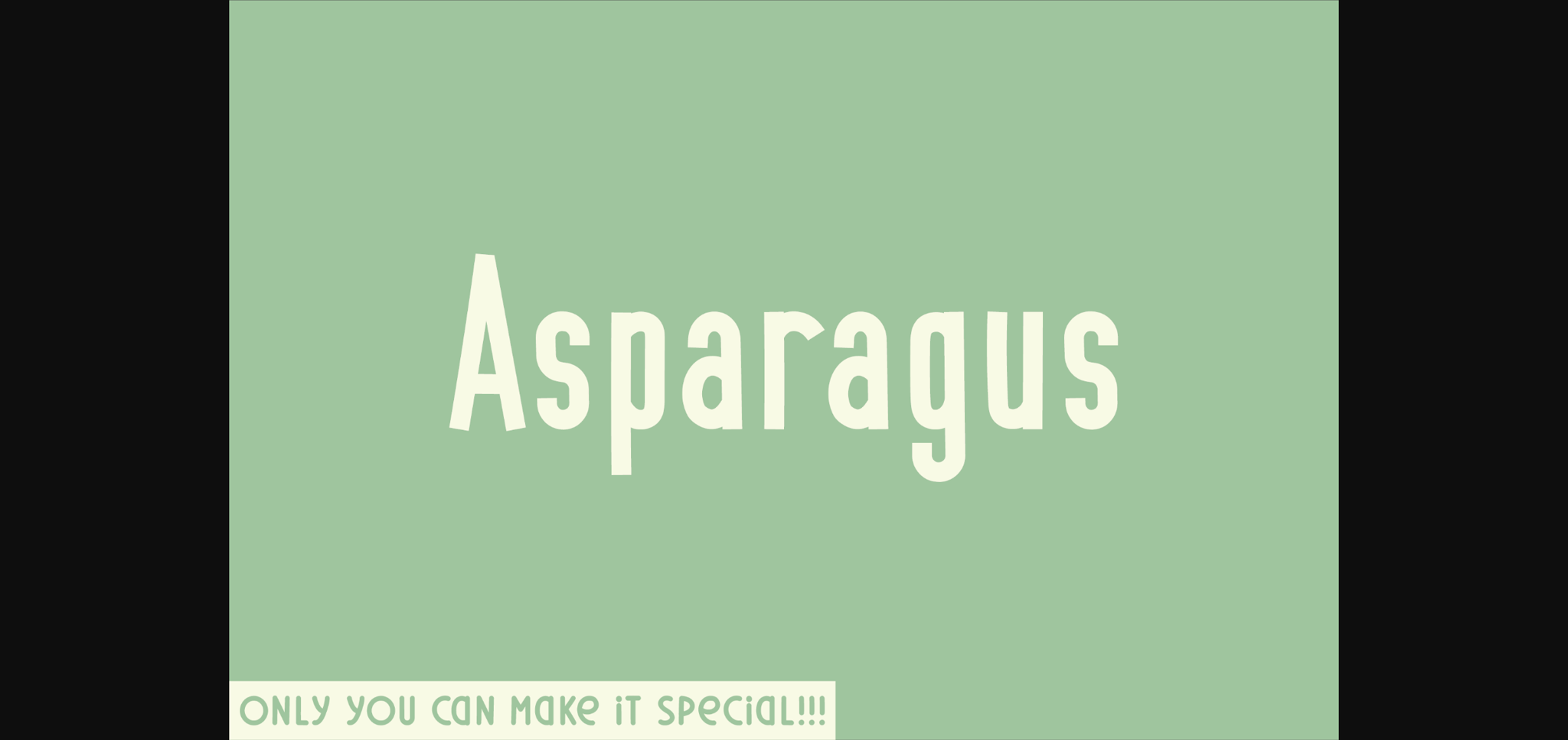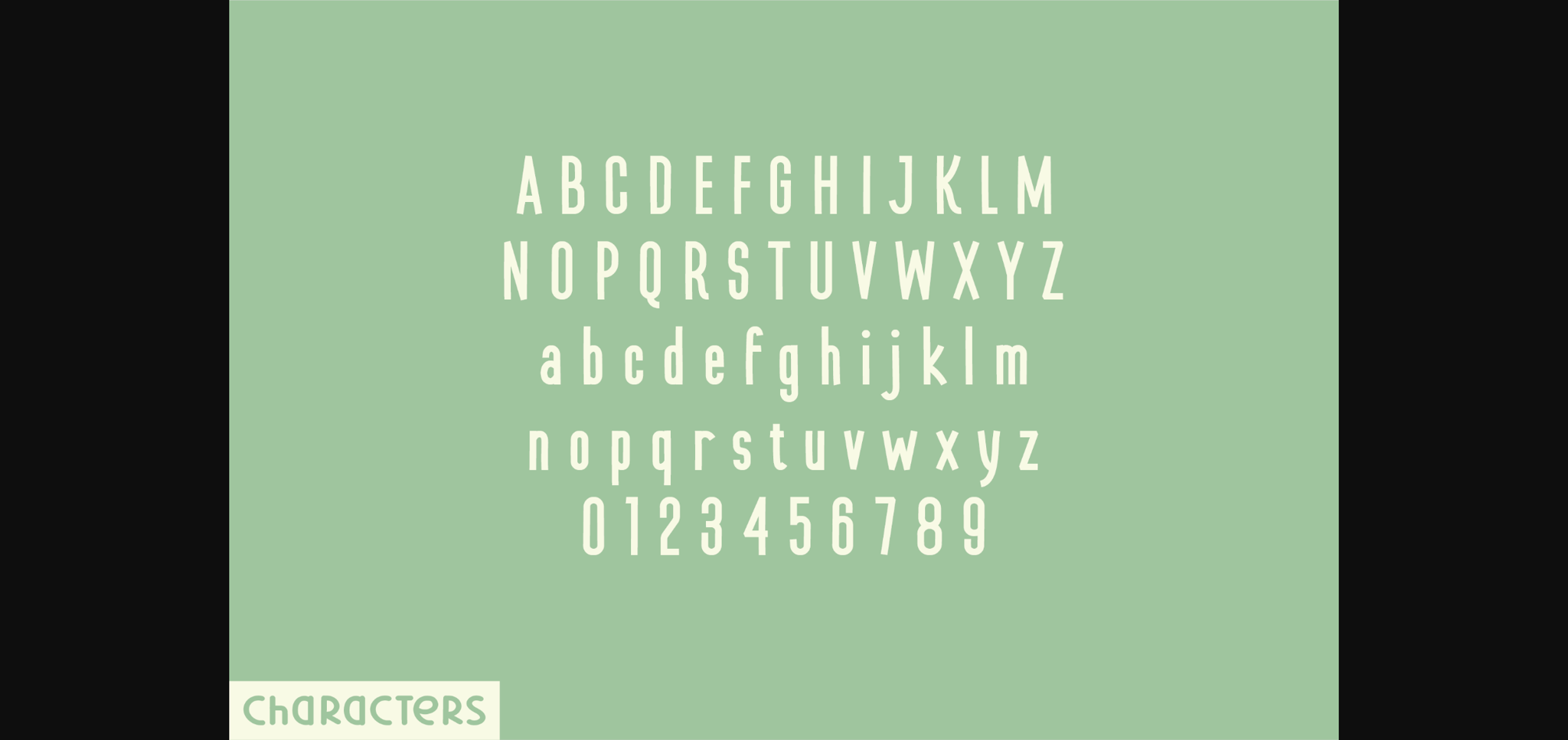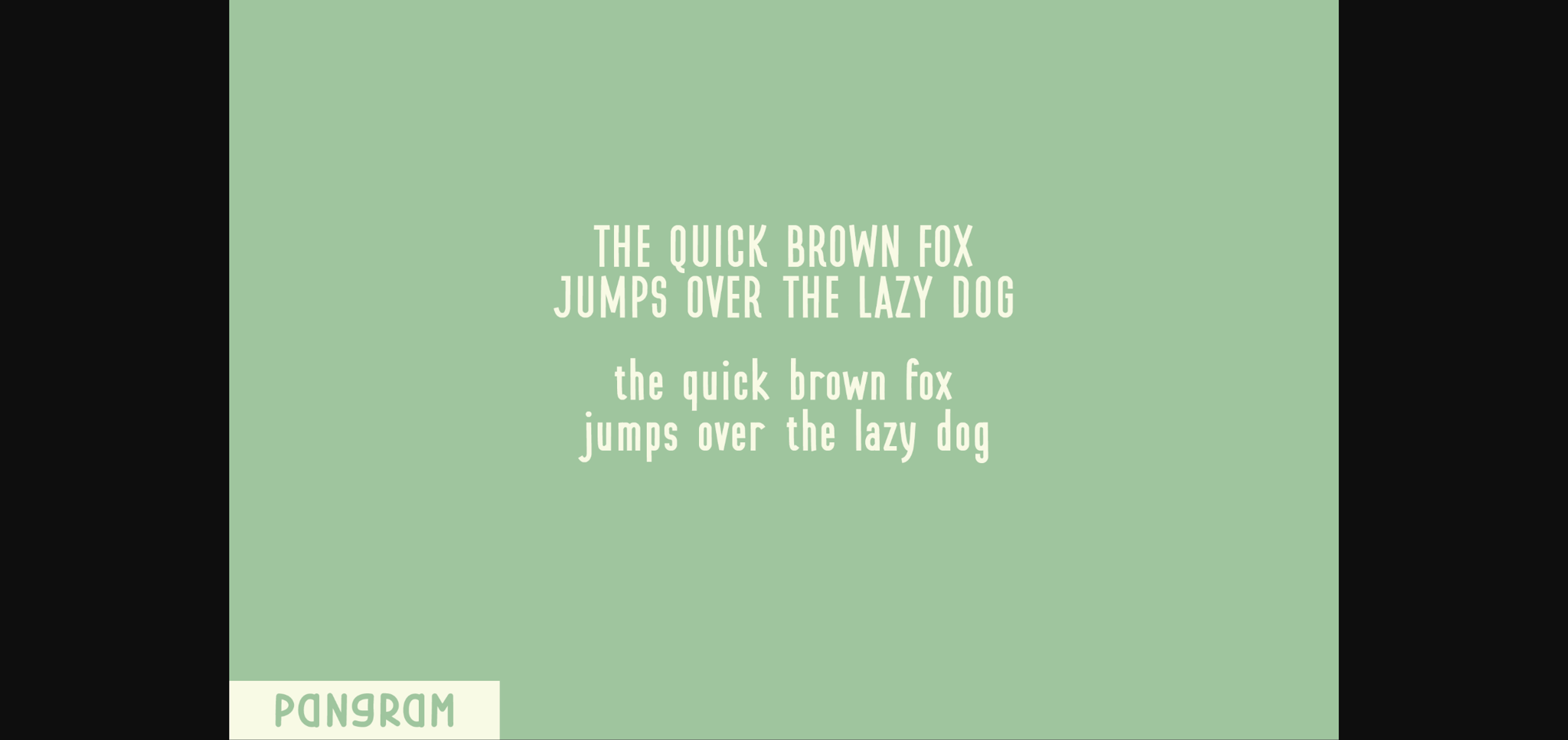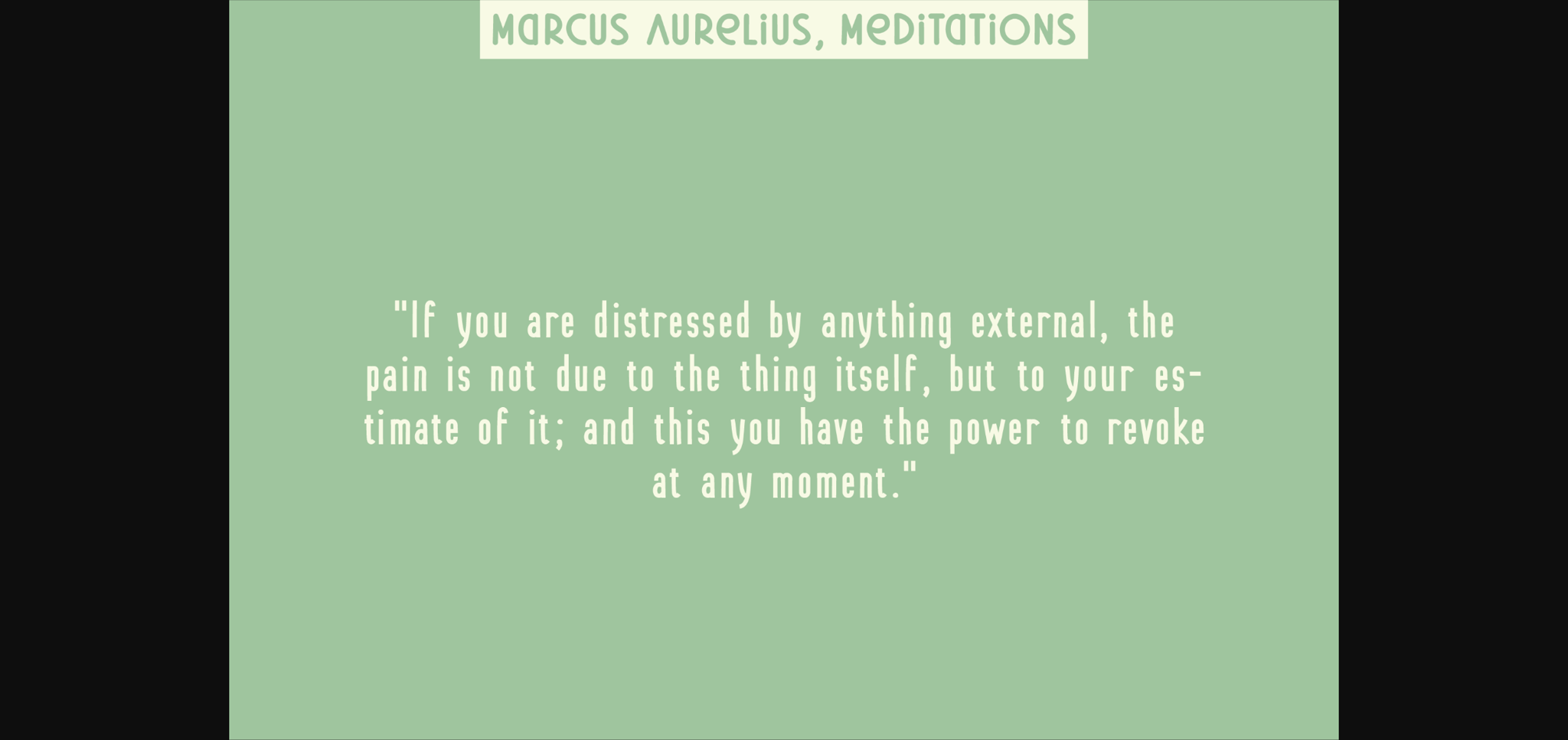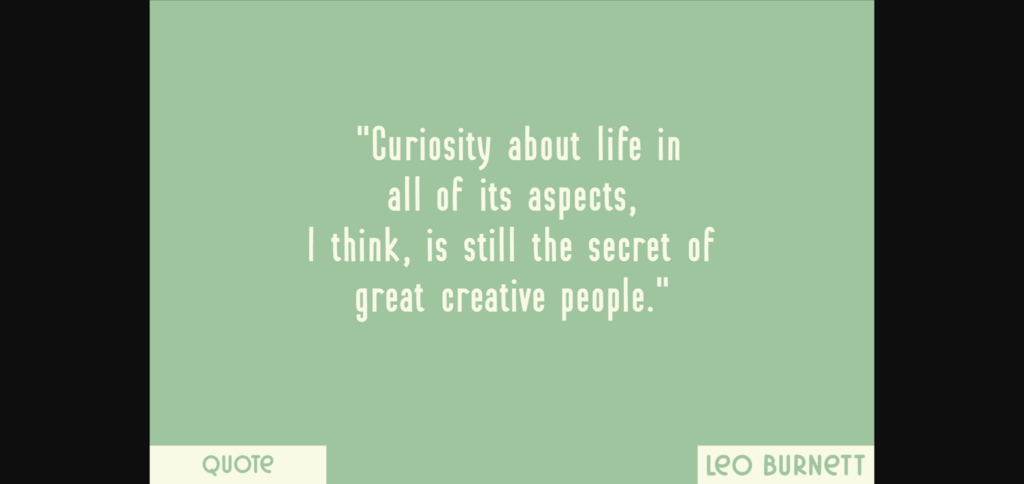
HomeSans Serif FontsAsparagus Font Sans Serif Fonts Asparagus Font FacebookXPinterestWhatsApp 1 of 7 ... Asparagus Font Poster 2... Asparagus Font Poster 3... Asparagus Font Poster 4... Asparagus Font Poster 5... Asparagus Font Poster 6... Asparagus Font Poster 7... About Asparagus Font Asparagus is a natural sans serif font created without changing a single node in each character’s indentation – this makes this font very interesting and unique. Perfect for quotes, notes, tees, and any product design. DOWNLOAD NOW People also explored Hamble Font Fontdinerdotcom Swanky Slender Thin Font Christmas Journey Font Sunttolayo Font Caroline Bellish Font Agellia Benitta Font Vintage School Font Coldjack Font 389 0 TagsAsparagus Font Previous articleBlackened FontNext articleKalamata Font LEAVE A REPLY Cancel reply Comment: Please enter your comment! Name:* Please enter your name here Email:* You have entered an incorrect email address! Please enter your email address here Website: Save my name, email, and website in this browser for the next time I comment. Personal Use Free Lynoselt Personal Use Free Read more about this font Krait Personal Use Free Read more about this font Rheiborn Personal Use Free Read more about this font Rollayka Personal Use Free Read more about this font BLOG Fonts That Capture the Spirit of New York City New York City is more than just a place—it’s an experience, a rhythm, a visual language... Modern Sans-Serif Fonts That Brands Love in 2025 Best Fonts for YouTube Videos: Make Your Thumbnails Stand Out How to Cut Any Font on Cricut: Convert a Font to SVG (Free)